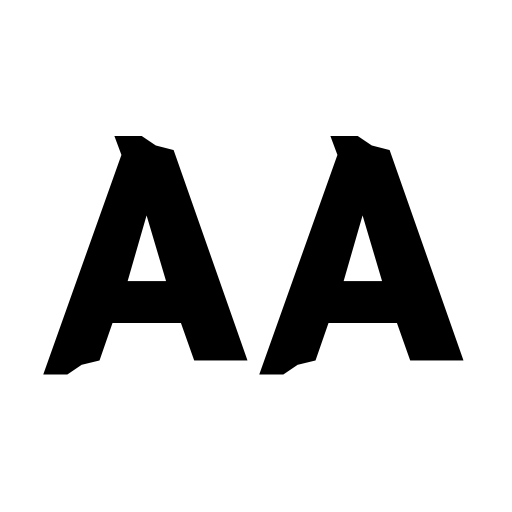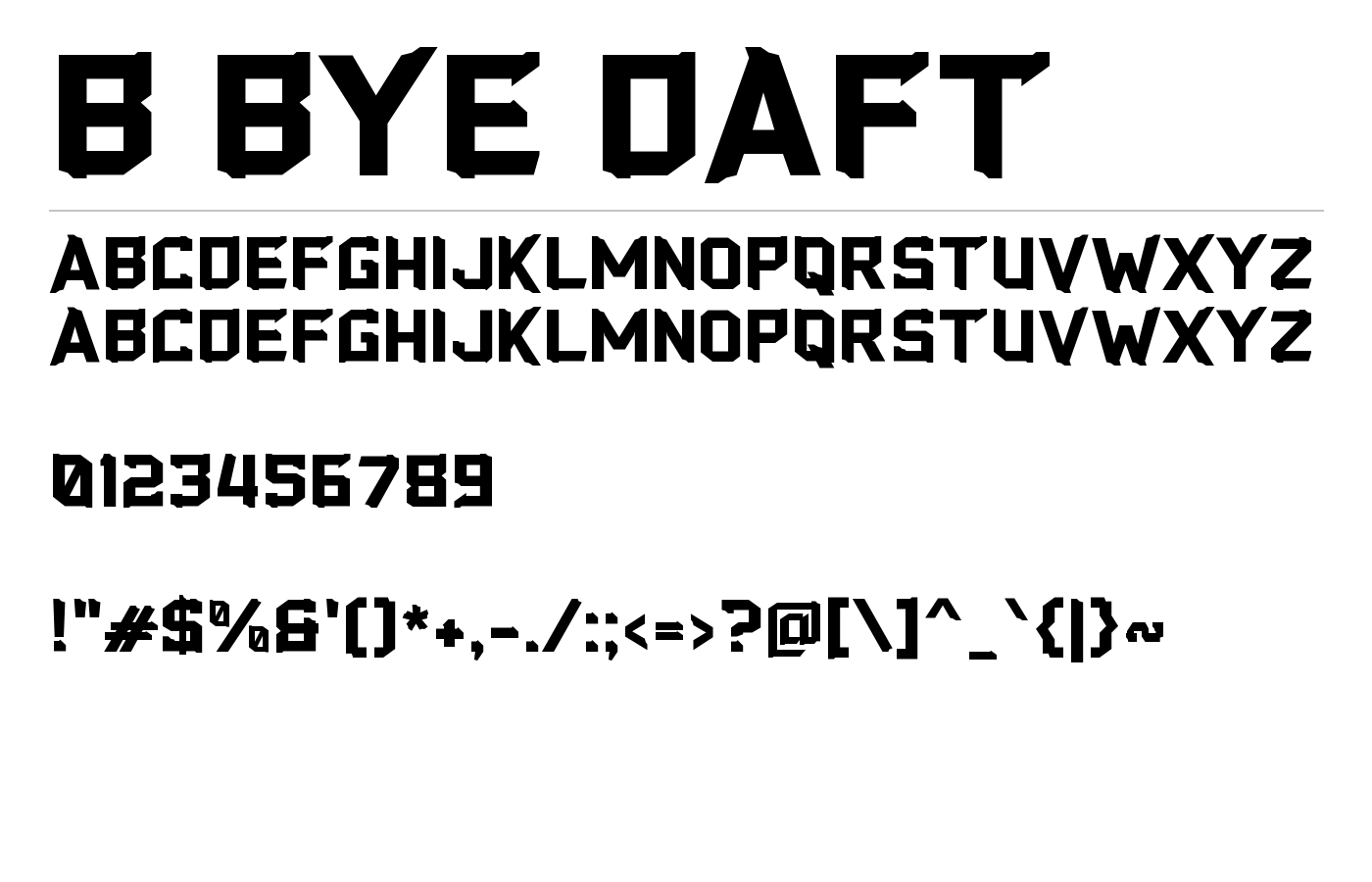
b Bye Daft is a bold, geometric sans serif font with a condensed width and sharp angular strokes that give it a strong, edgy feel. Its uppercase-only style with unique cutout details and consistent stroke weight makes it perfect for striking headlines, logos, and designs that seek a modern, industrial, or tech-inspired vibe. This font stands out best in display uses where a bold, impactful statement is needed.
b Bye Daft Font